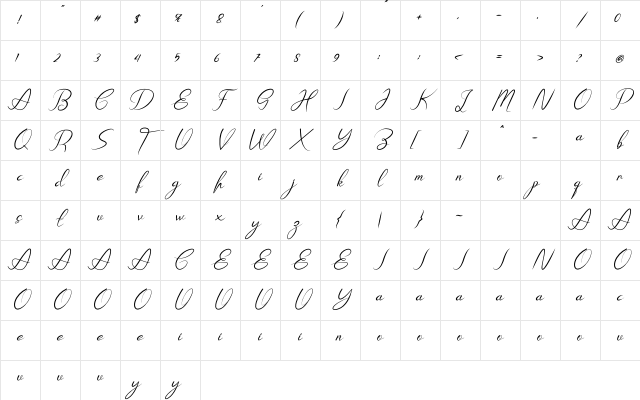
Platform Italic Free Font
Platform Italic
Designer: designvector10
Complete Platform Italic glyph index. Displaying only characters natively supported by Platform Italic font.
Design Context for Platform
Platform is a composed and adaptable typeface that performs quietly and consistently across a wide range of design contexts. The slanted form adds forward momentum and visual energy.
Pro Tip: Use Platform for emphasis, pull quotes, and subheadings where its slanted energy can add rhythm to the layout.